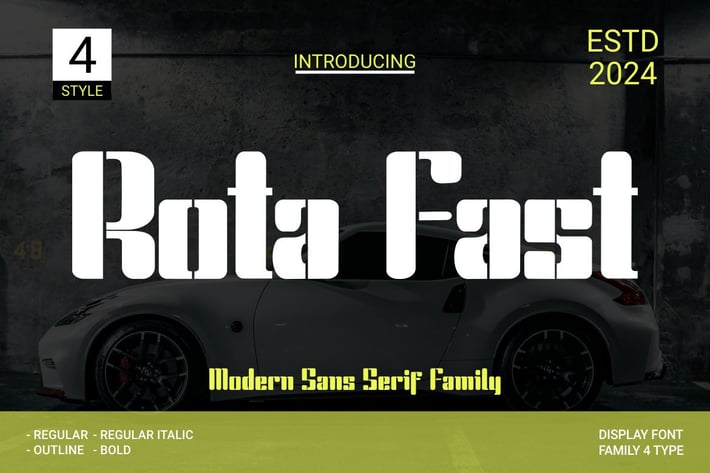
RotaFast - Modern Sans Serif Family Font
Proudly present our new product RotaFast - Modern Sans Serif Family Font
is a modern and authentic font. Perfect for professional needs and product branding, this font is suitable for any branding project such as quotes, logos, blog headers, posters, ribbons, letters, invitations, stationery, etc... Designed to be versatile and flexible that can be used on a variety of projects and media. extraordinary in a variety of contexts.